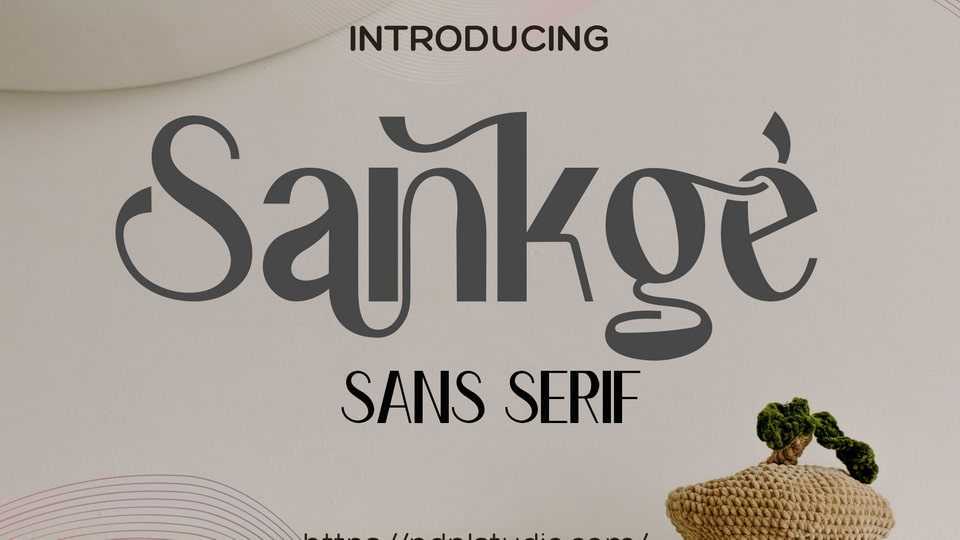
Download Sankge font, a unique sans serif typeface that blends modern elegance with artistic curves with its distinctive letterforms and stylish alternates.
Designer: NDNL Studio